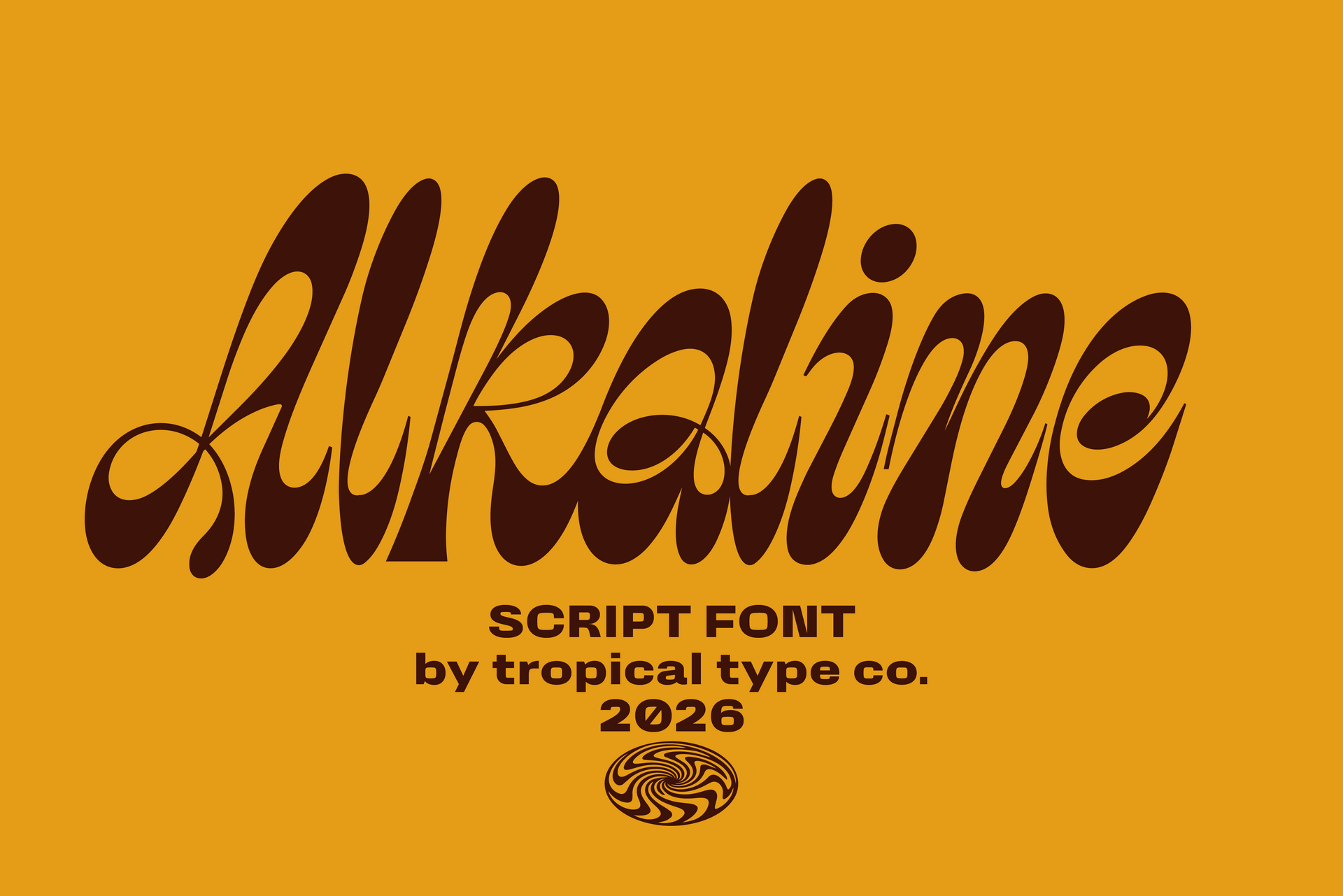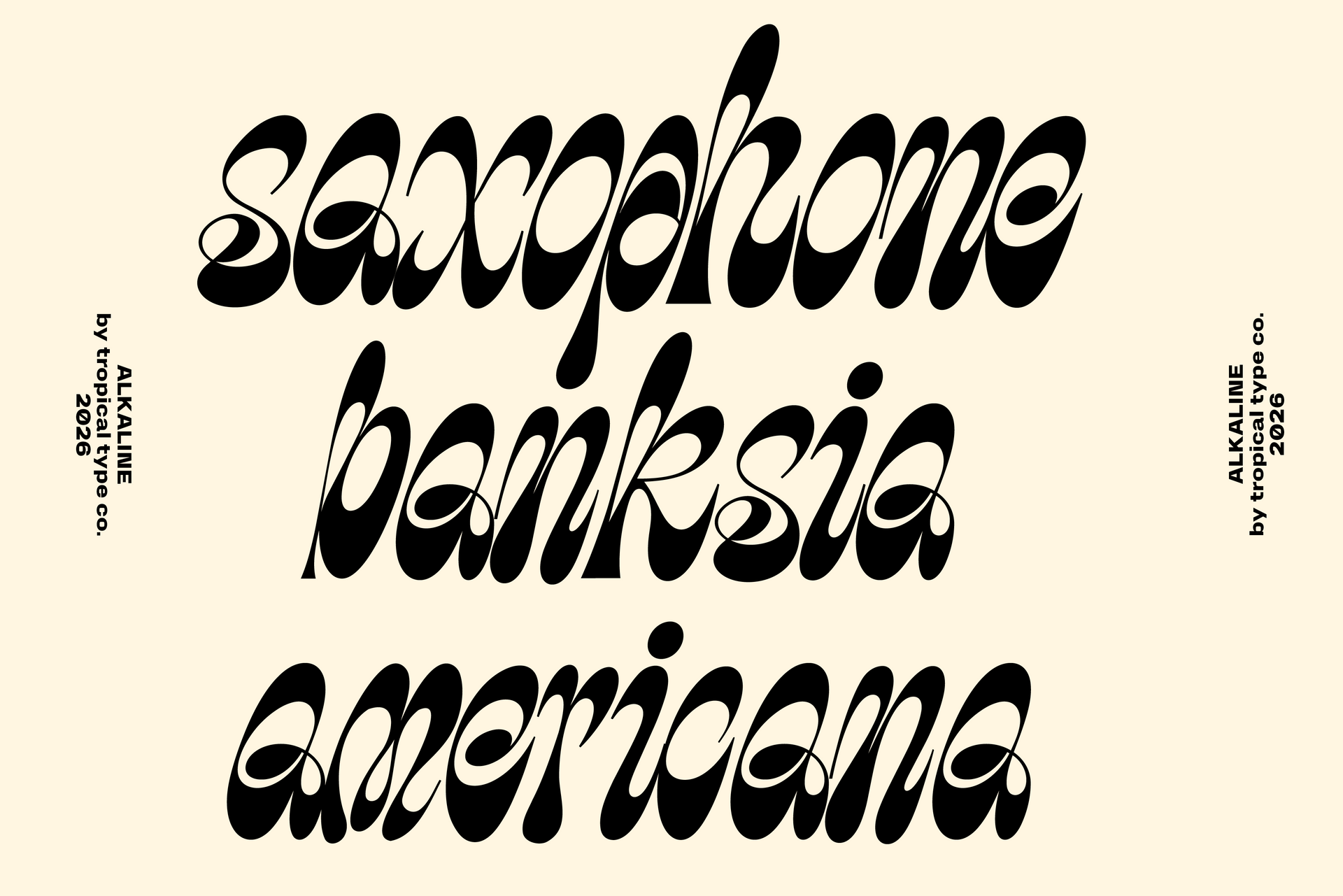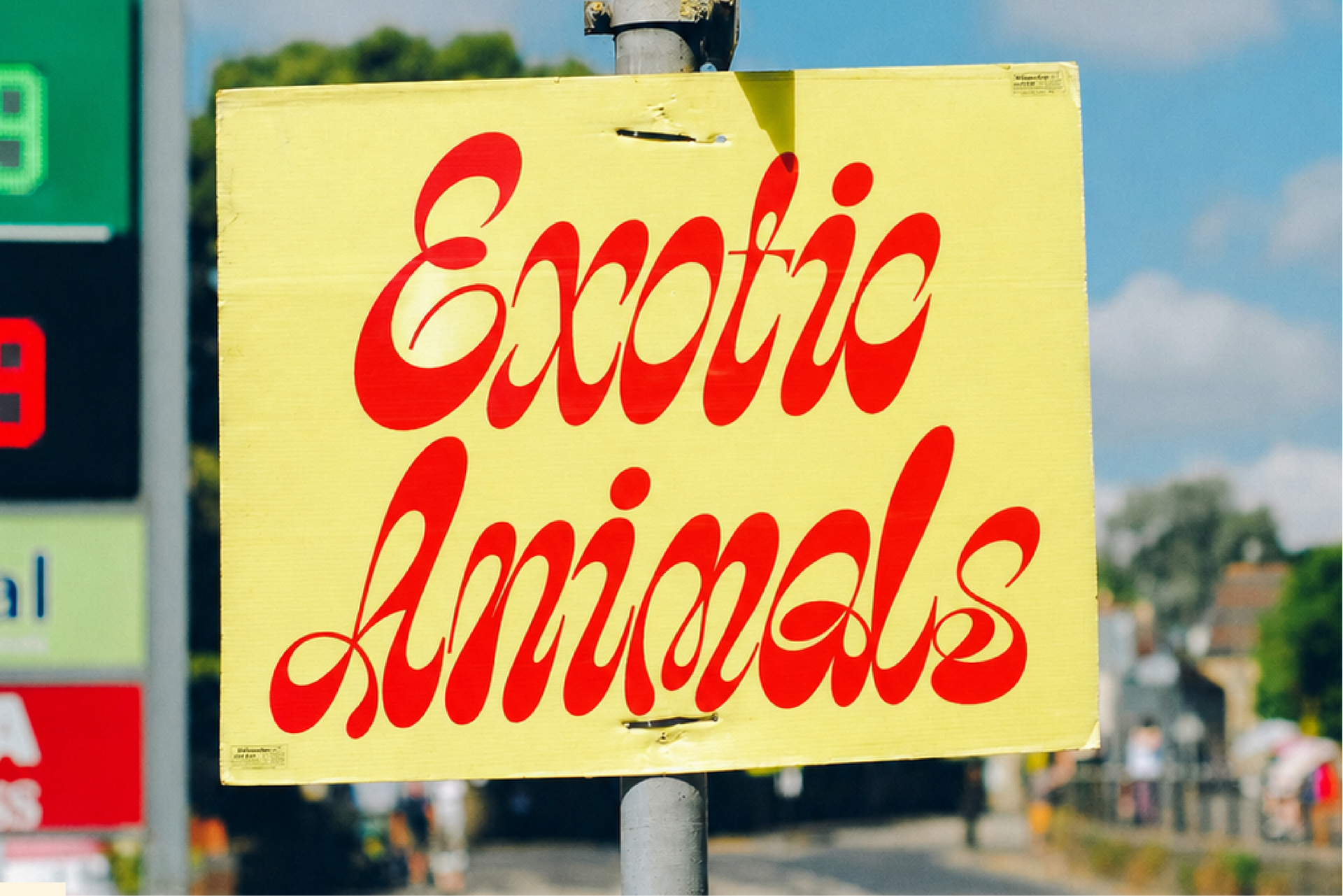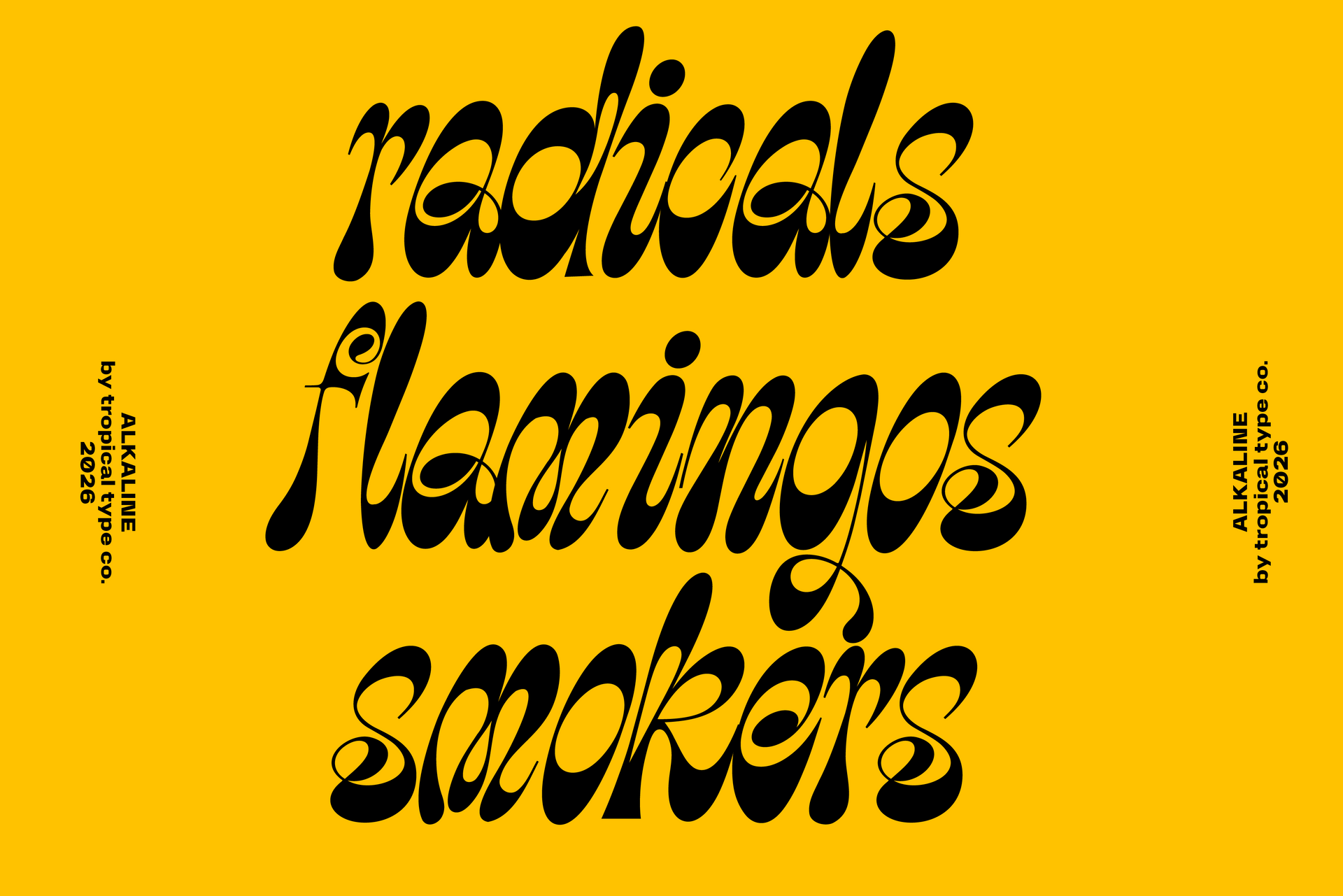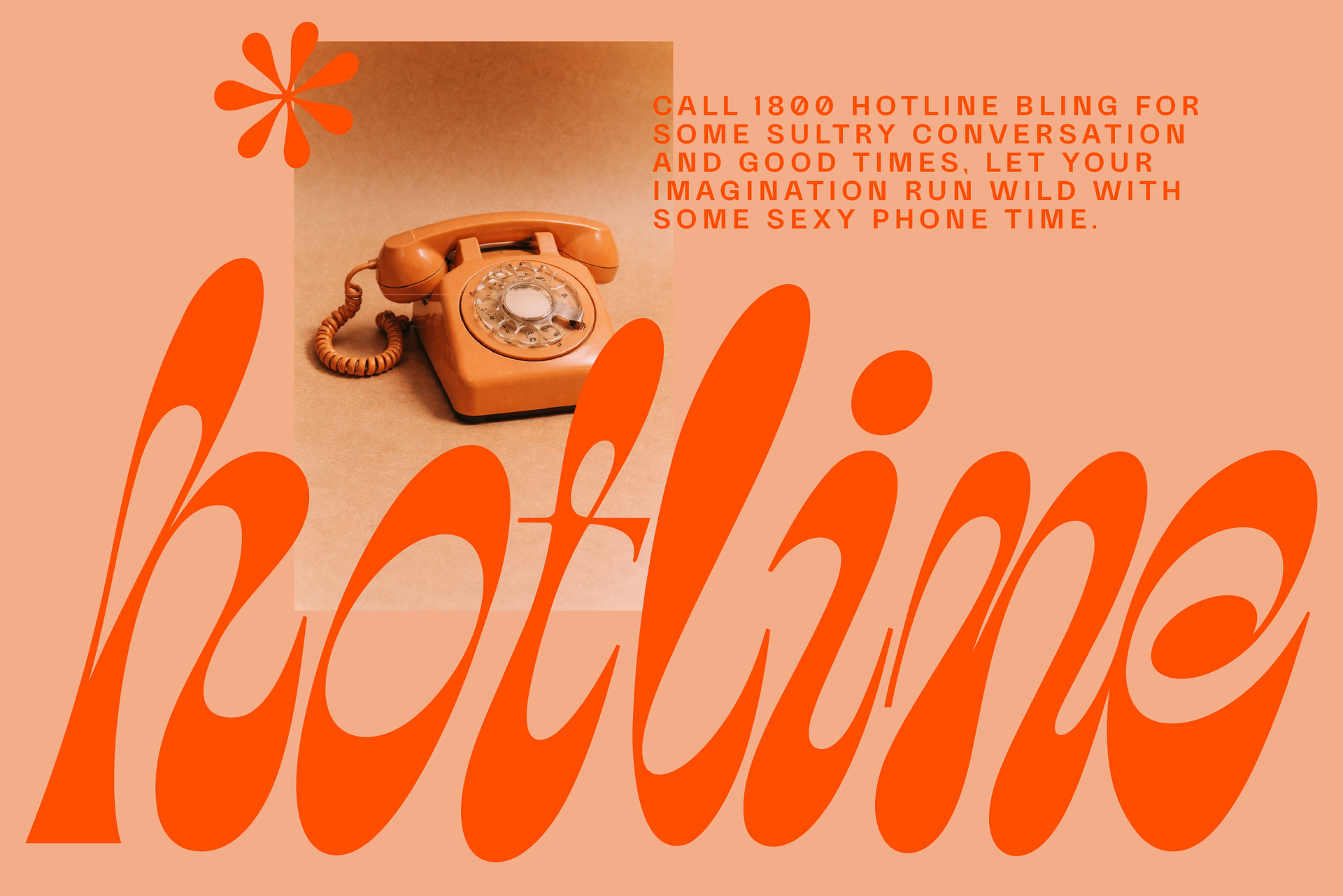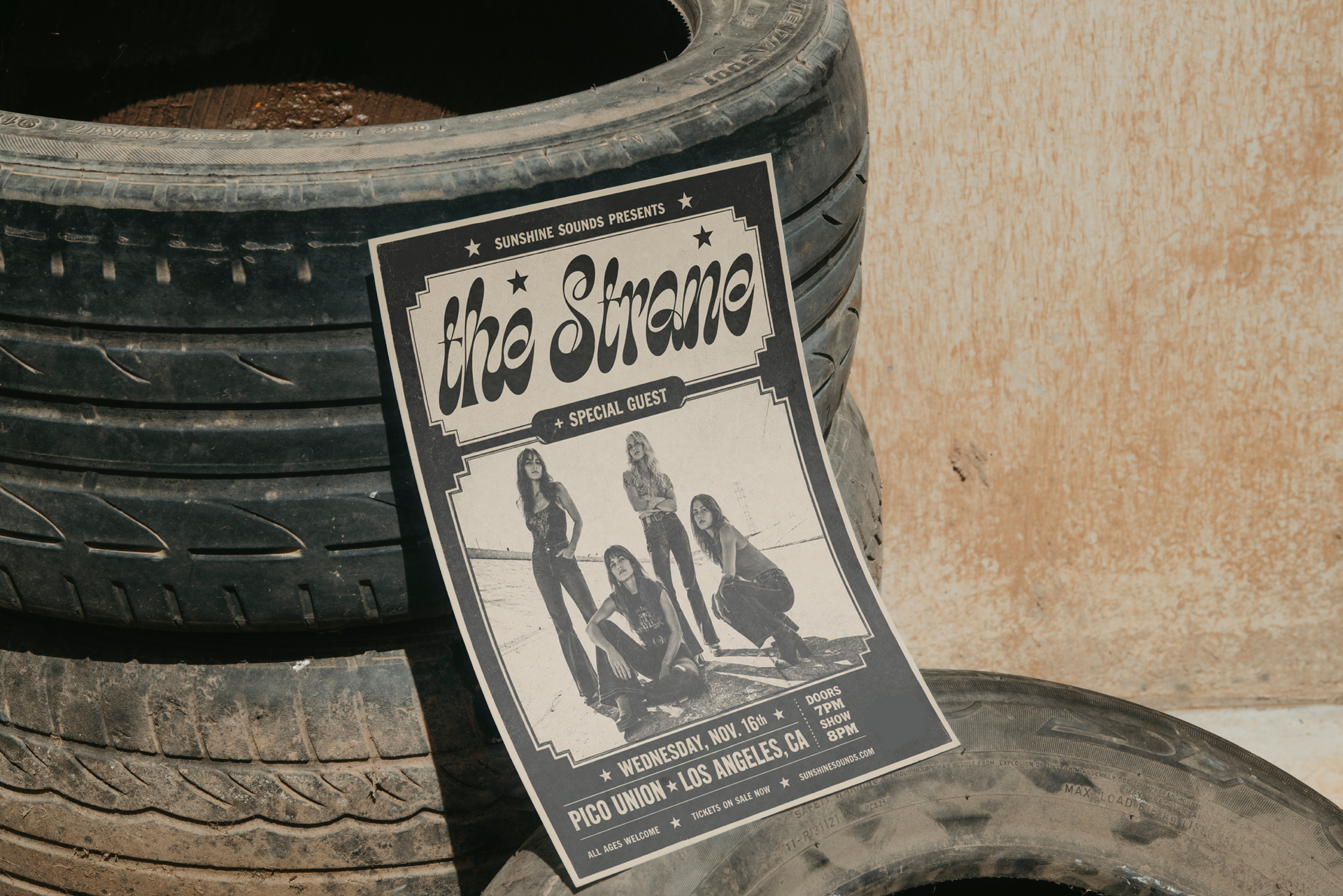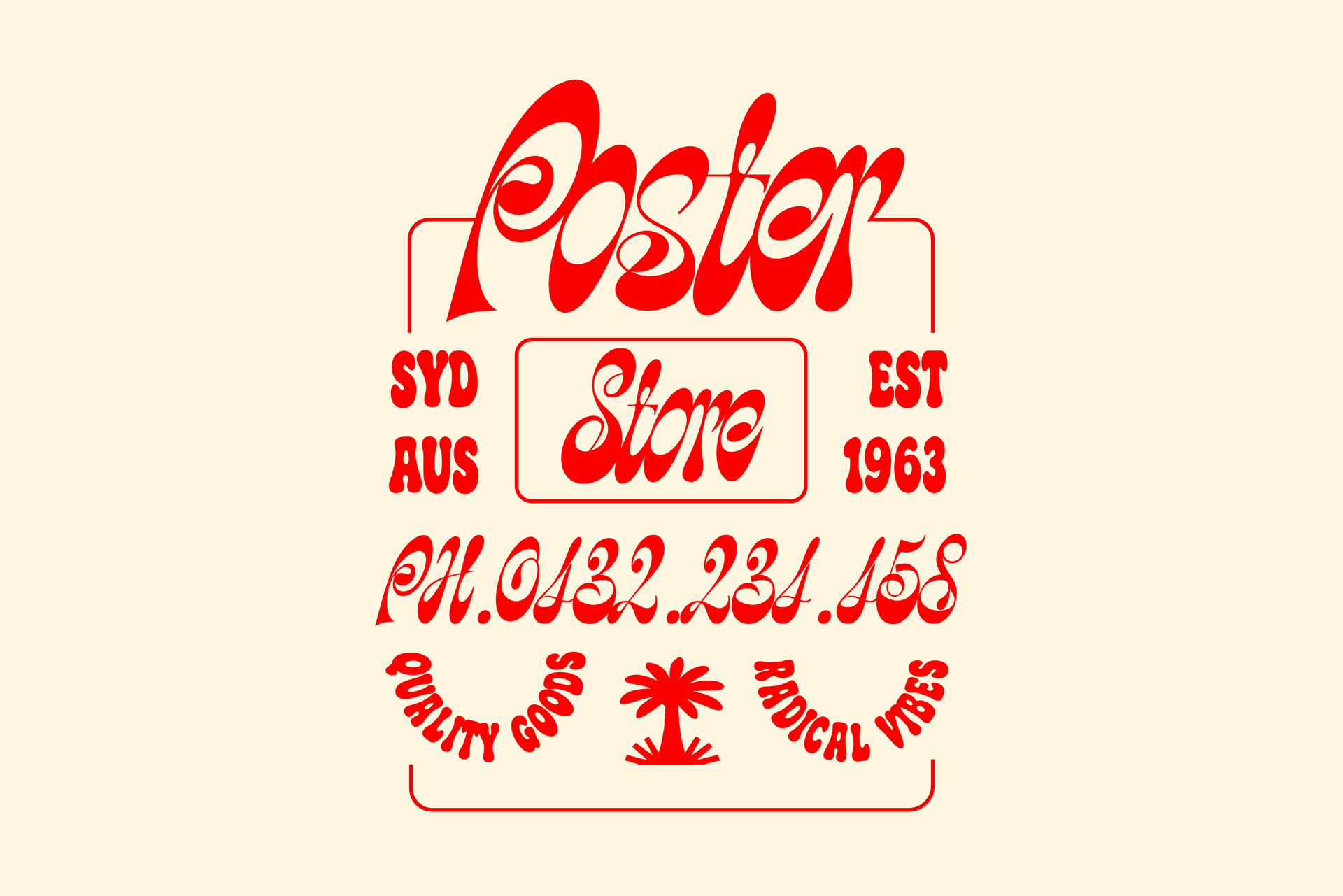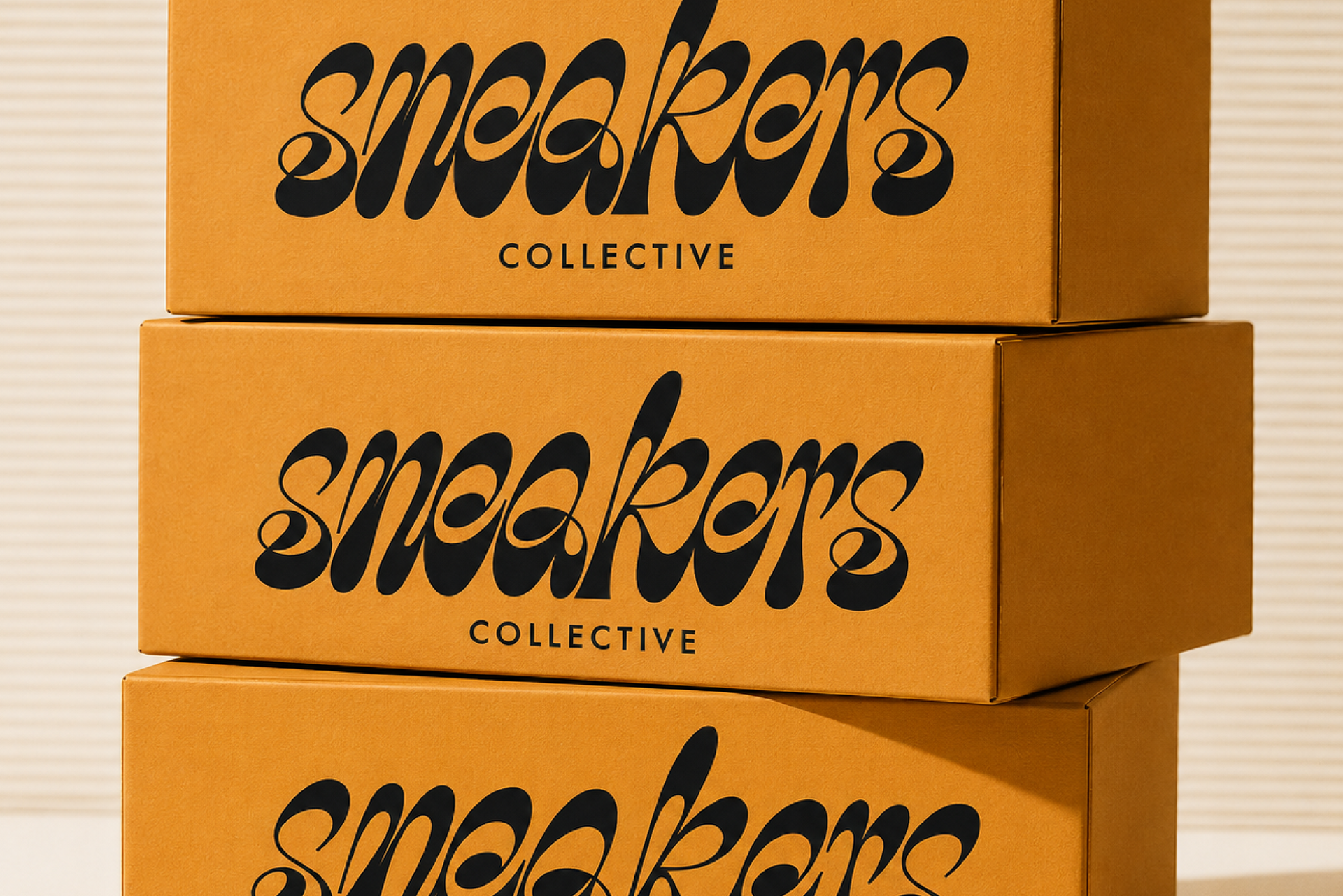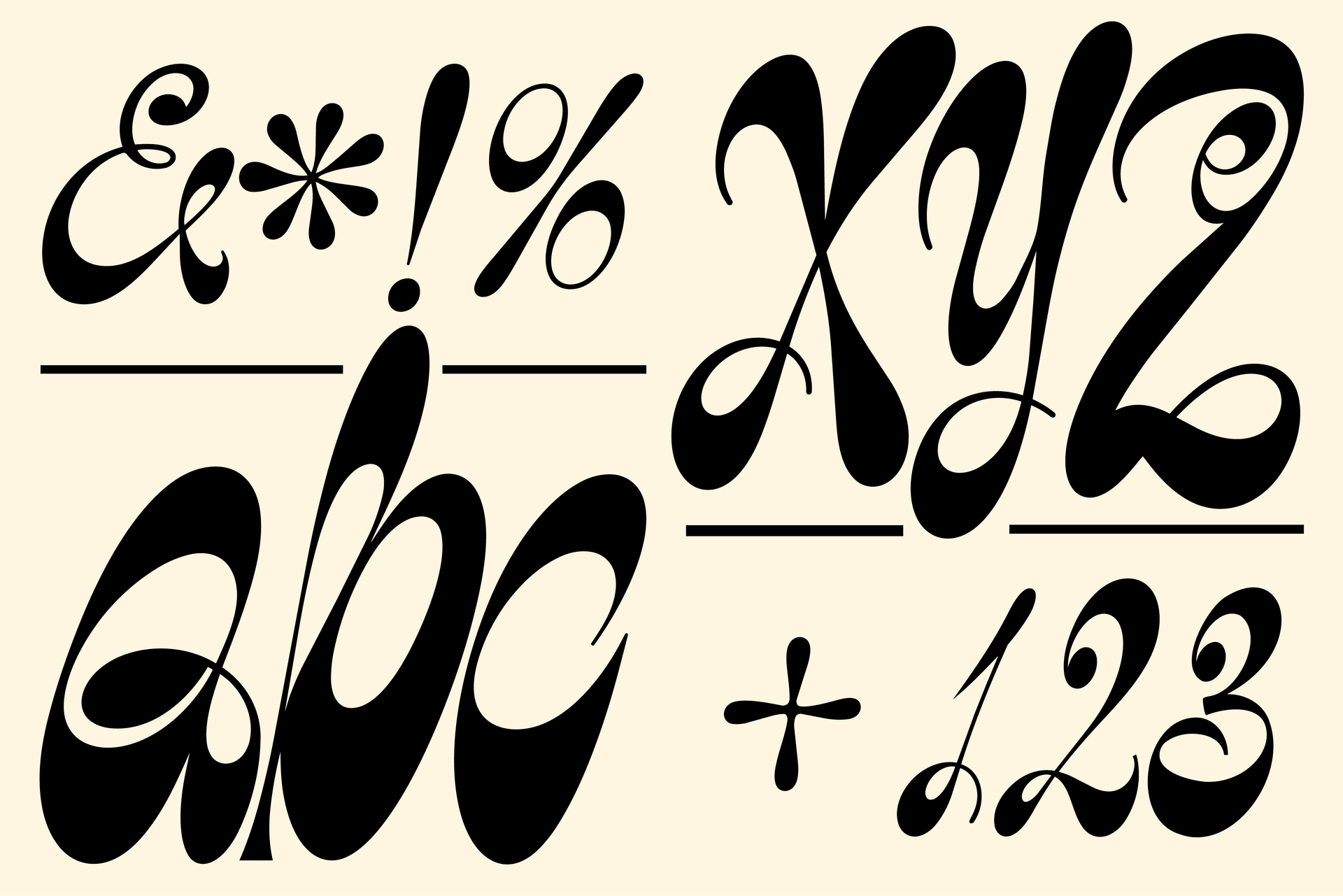
Alkaline Script
Alkaline is a loose hippy trippy typeface that you might think I was high when I created, but here me out, I can explain! I'm a professional, you see! I was in a suit and tie, in my high rise office in a big boring city doing serious typographical work. My secretary must have spiked my electrolyte creatine protein shake with the wrong type of mushrooms and my serious sans serif font got warped into this wild jazz number!